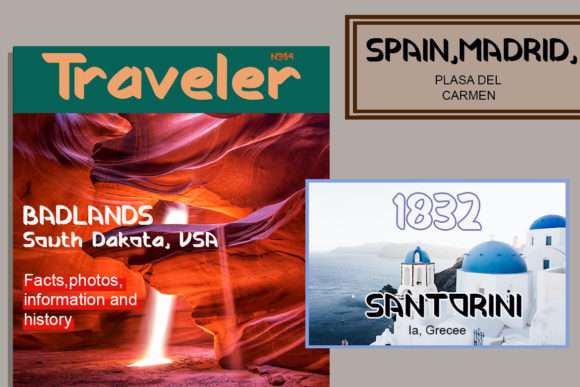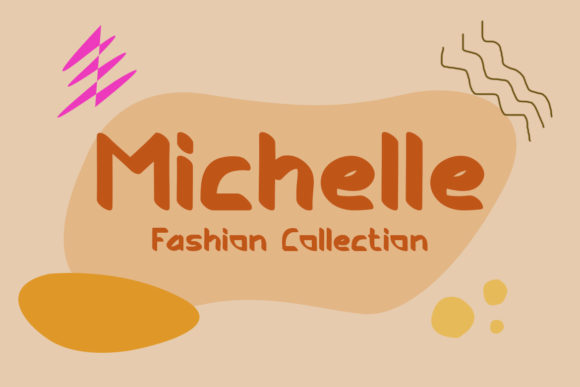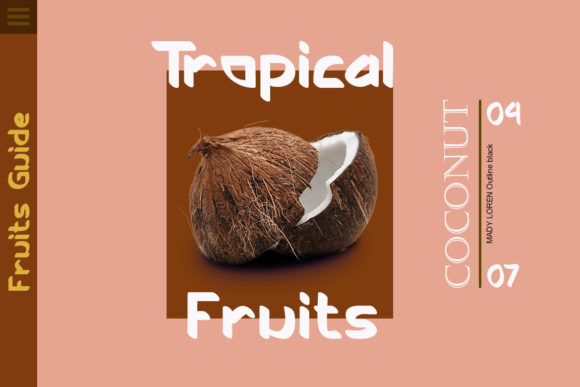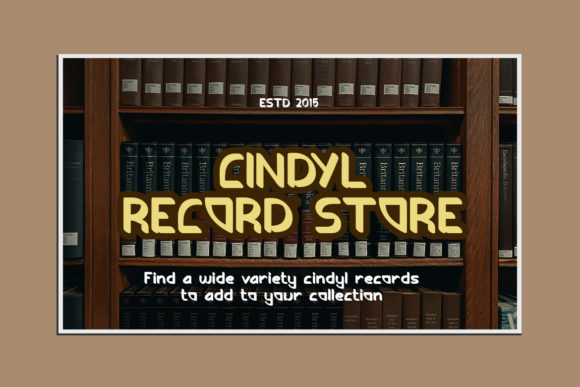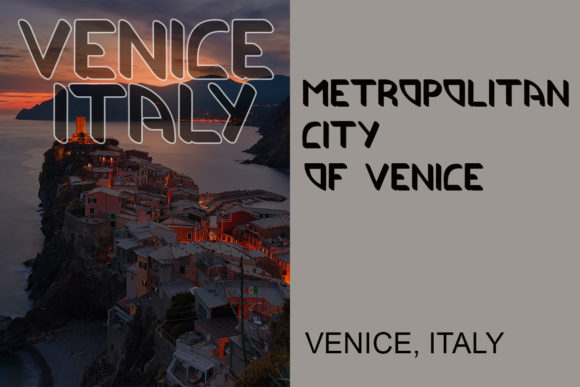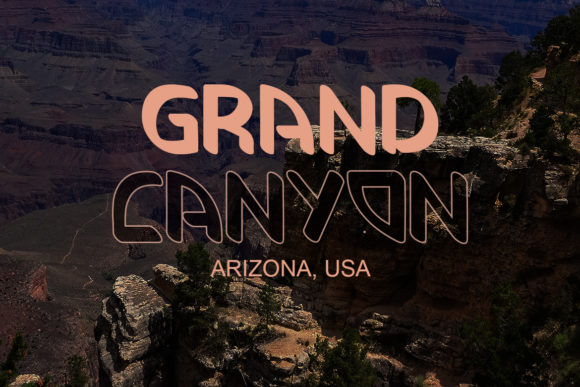
Gondes Font: The Ultimate Display Font for Creative Projects
Are you tired of using the same old fonts for your creative projects? Look no further than Gondes Font, a unique and adorable display font that’s sure to become a favorite. With its quirky characters and friendly vibe, Gondes Font is perfect for a wide range of projects, from crafting and design to digital media and marketing.
What Makes Gondes Font So Special?
Gondes Font is a one-of-a-kind display font that stands out from the crowd. Its distinctive characters are designed to add a touch of whimsy and personality to any project. Whether you’re creating a logo, a poster, or a social media graphic, Gondes Font is sure to make your design pop. Plus, its friendly and approachable vibe makes it perfect for brands and businesses that want to connect with their audience on a more personal level.
Key Features of Gondes Font
- Unique and Quirky Characters: Gondes Font features a range of quirky characters that are sure to add some personality to your designs.
- Display Font: Gondes Font is designed specifically as a display font, making it perfect for headlines, titles, and other attention-grabbing elements.
- Friendly Vibe: The font’s friendly and approachable vibe makes it perfect for a wide range of projects, from crafting and design to digital media and marketing.
- Easy to Read: Despite its quirky characters, Gondes Font is surprisingly easy to read, making it perfect for use in a variety of contexts.
Gondes Font is a dream come true for designers and crafters. Whether you’re creating digital media, crafting handmade cards and gifts, or designing marketing materials, Gondes Font is the perfect choice. Its unique characters and friendly vibe make it perfect for adding a personal touch to any project. Plus, its ease of use and versatility make it a great addition to any designer’s or crafter’s toolkit.
Examples of Projects That Gondes Font is Perfect For
- Social Media Graphics: Add a touch of personality to your social media graphics with Gondes Font.
- Logos and Branding: Use Gondes Font to create a unique and memorable logo for your brand or business.
- Posters and Flyers: Make your posters and flyers stand out with Gondes Font’s quirky characters and friendly vibe.
- Crafting Projects: Add a personal touch to your handmade cards, gifts, and other crafting projects with Gondes Font.
Tips for Using Gondes Font
- Experiment with Different Sizes: Gondes Font looks great in a variety of sizes, so don’t be afraid to experiment and find the perfect size for your project.
- Pair with Other Fonts: Gondes Font pairs well with a range of other fonts, so try pairing it with a sans-serif font for a contrasting look.
- Use for Headlines and Titles: Gondes Font is perfect for headlines and titles, so use it to add a touch of personality to your designs.
Gondes Font is a unique and adorable display font that’s perfect for designers and crafters. With its quirky characters and friendly vibe, it’s sure to become a favorite. Whether you’re creating digital media, crafting handmade cards and gifts, or designing marketing materials, Gondes Font is the perfect choice. So why wait? Download Gondes Font today and start adding a touch of personality to your designs!